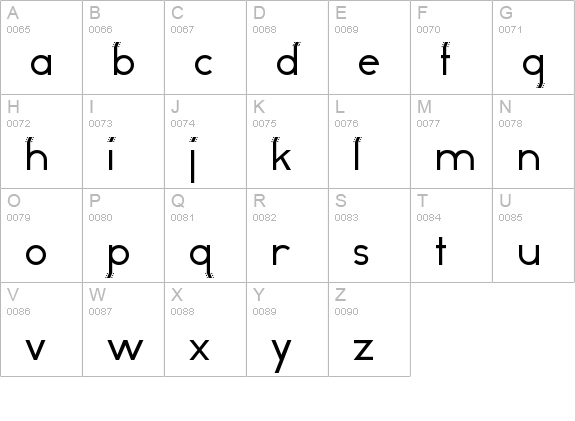
Odd Dog Regular is the standard, neutral variant in the Odd typeface family \xE2\x80\x94 well suited to general body text, paragraphs, and standard typographic work.
Odd Dog Regular is a playful and quirky font that adds a touch of whimsy to any design project. With its unique character shapes and irregular letterforms, this font is sure to stand out and make a statement. Whether you're working on a children's book, a poster, or a logo, Odd Dog Regular is the perfect choice to add a fun and offbeat vibe to your work. The best part? Odd Dog Regular is available for free download at FontsMarket.com, making it accessible to everyone looking to add a bit of personality to their designs. Embrace the playful side of typography with Odd Dog Regular and watch your projects come to life in a whole new way.